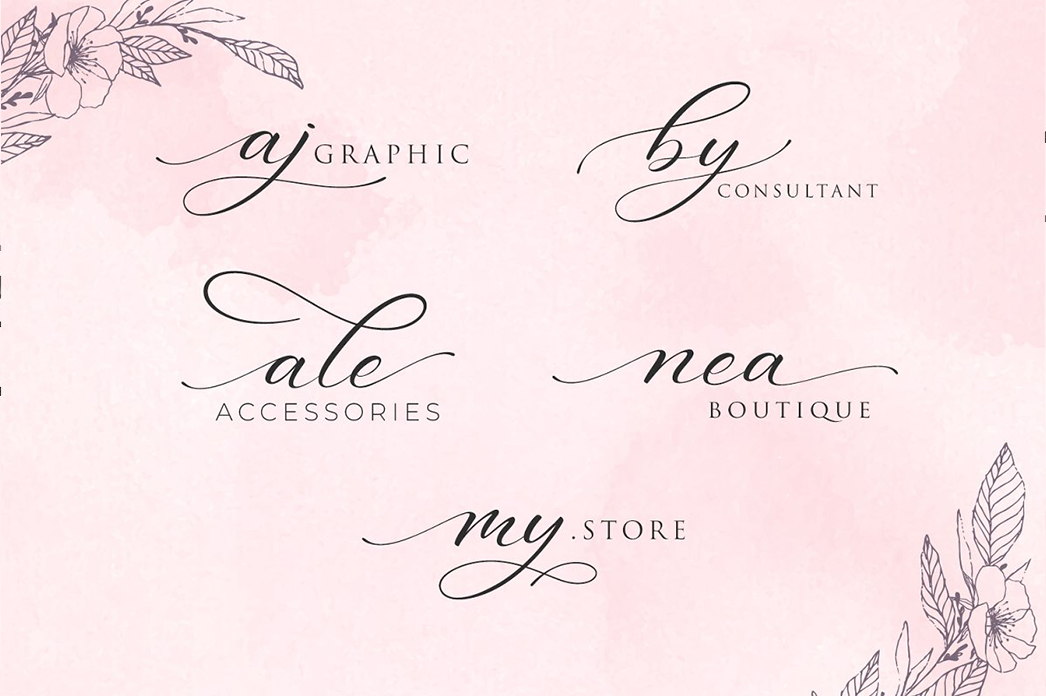
Georgia script font free download. Georgia script fonts free download. Download the georgia script font by debut studio. Georgia script is modern feminine font every single letters have been carefully crafted to make your text looks beautiful.
Combining these four fonts you could create some remarkable trademarks headlines and packaging designs. They are organized into highly regular formal types similar to cursive writing and looser more casual scripts. Georgia was made by inspired by retro and vintage design.
Introducing georgia script was made by inspired by retro and vintage design. This georgia font designed through natural cash comes great in a single weight in uppercase letters. Georgia was designed in 1996 by matthew carter and hand tuned for the screen by tom rickner.
Georgia script comes with uppercase lowercase numerals punctuations and so many variations on each characters include opentype alternates common ligatures tis font so perfect. The georgia script font has been downloaded 9586 times. And here is a handmade script typeface.
Georgia is usually a serif typeface built in 1993 by matthew carter and hinted by tom rickner to the microsoft company. Photography watermark quotes blog header poster wedding branding logo fashion apparel letter invitation stationery etc. Georgia script otf 400 by vuuuds.
Script typefaces are based upon the varied and often fluid stroke created by handwriting pretty much like the cursive fonts just typically more elegant. We always want to introduce you the best typography you please also support us. The font is encouraged by scotch roman layouts from the 19th century and was dependant.
It was supposed as a serif font that will appear classy but legible printed little or on low resolution screens. Georgia script comes with uppercase lowercase numerals punctuations and so many variations on each characters include opentype. With modern script style this font will perfect for many different project ex.